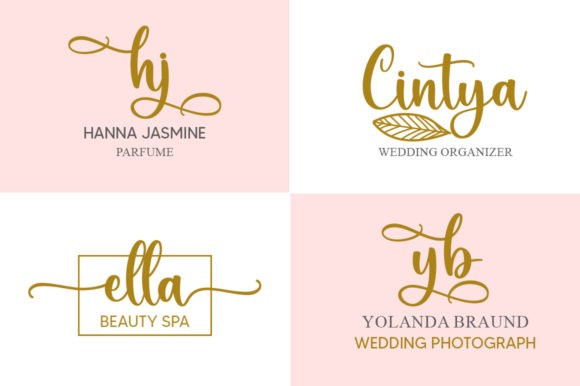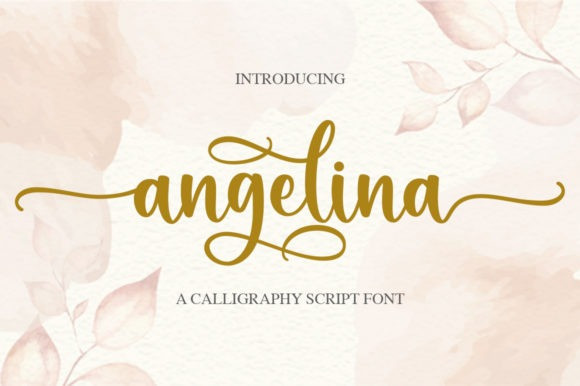
Angelina Typeface
Angelina Typeface is a dainty and flowing script font. Add this romantic and lovely looking font to each of your love letters, wedding invitations or favorite design ideas, and you will be astounded by the outcome.